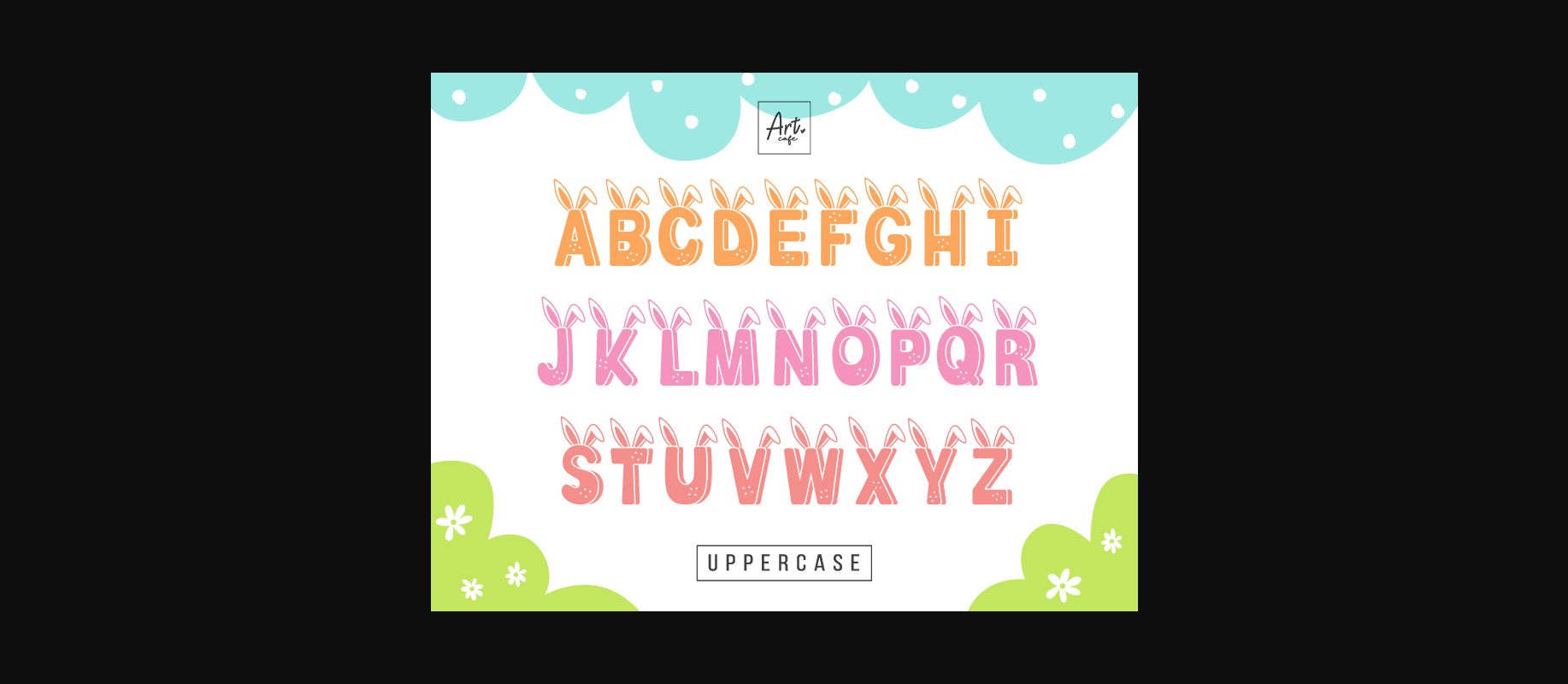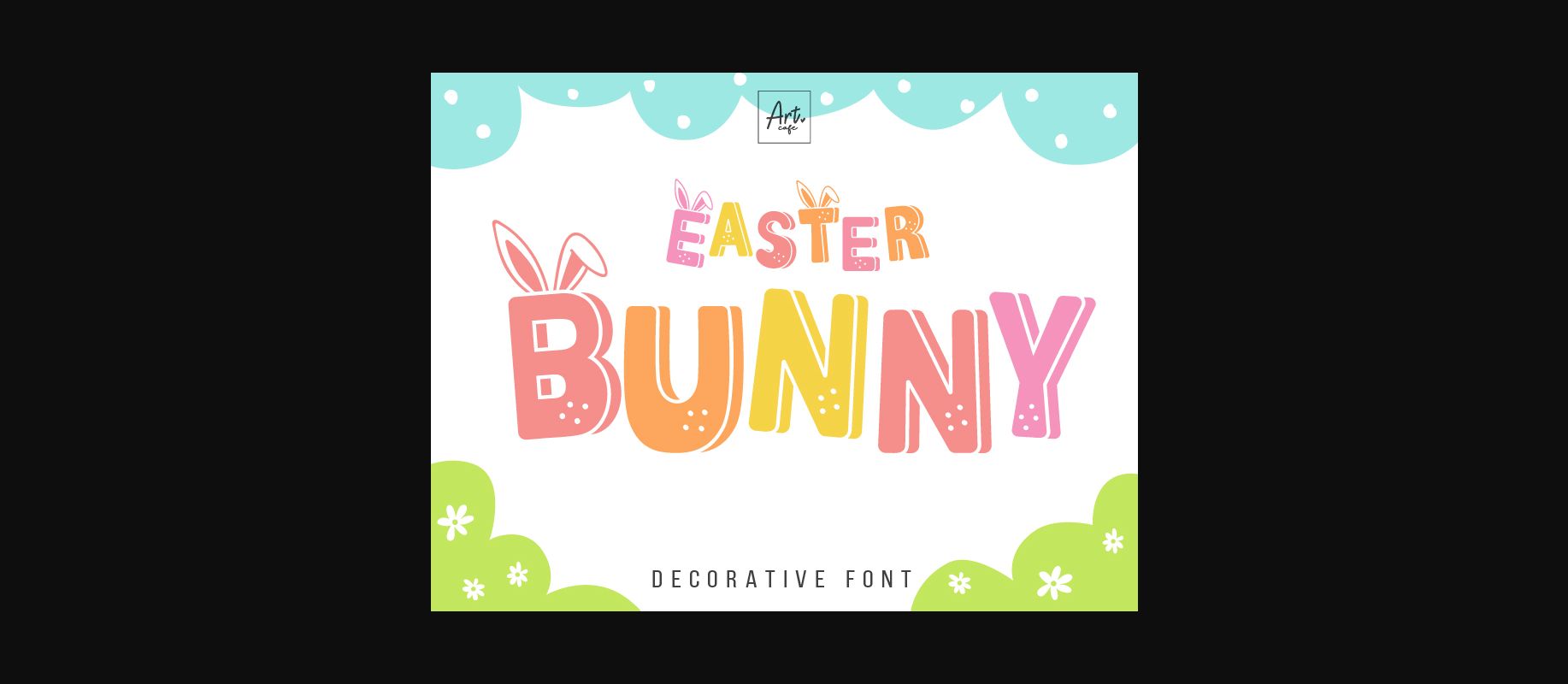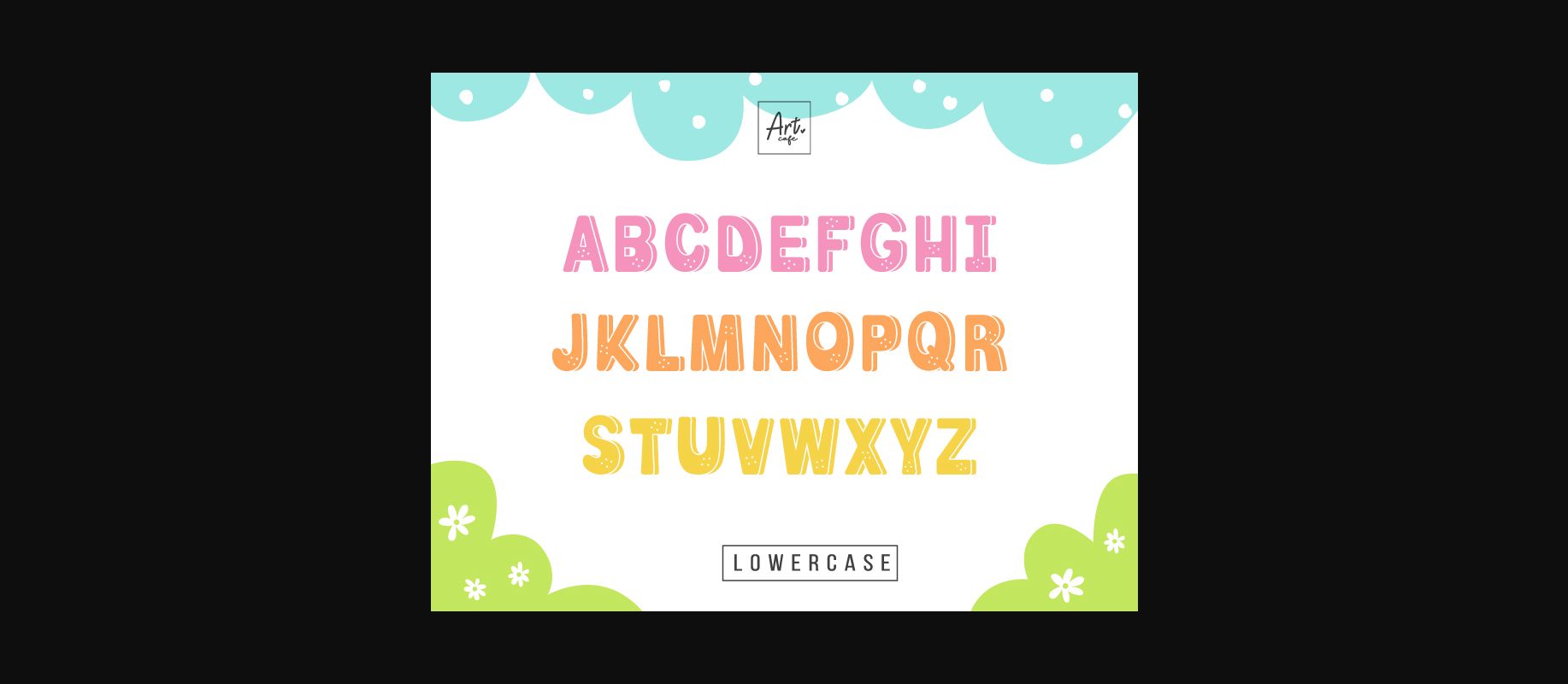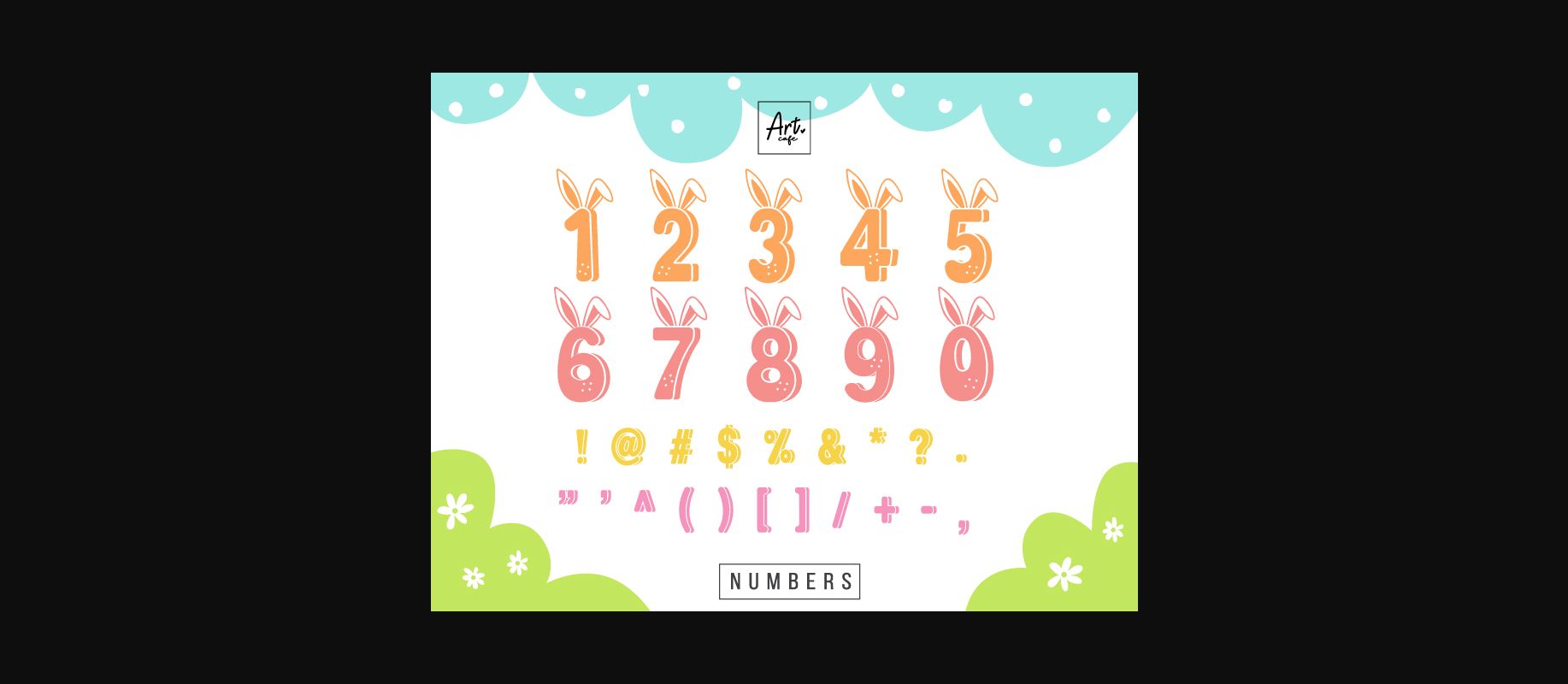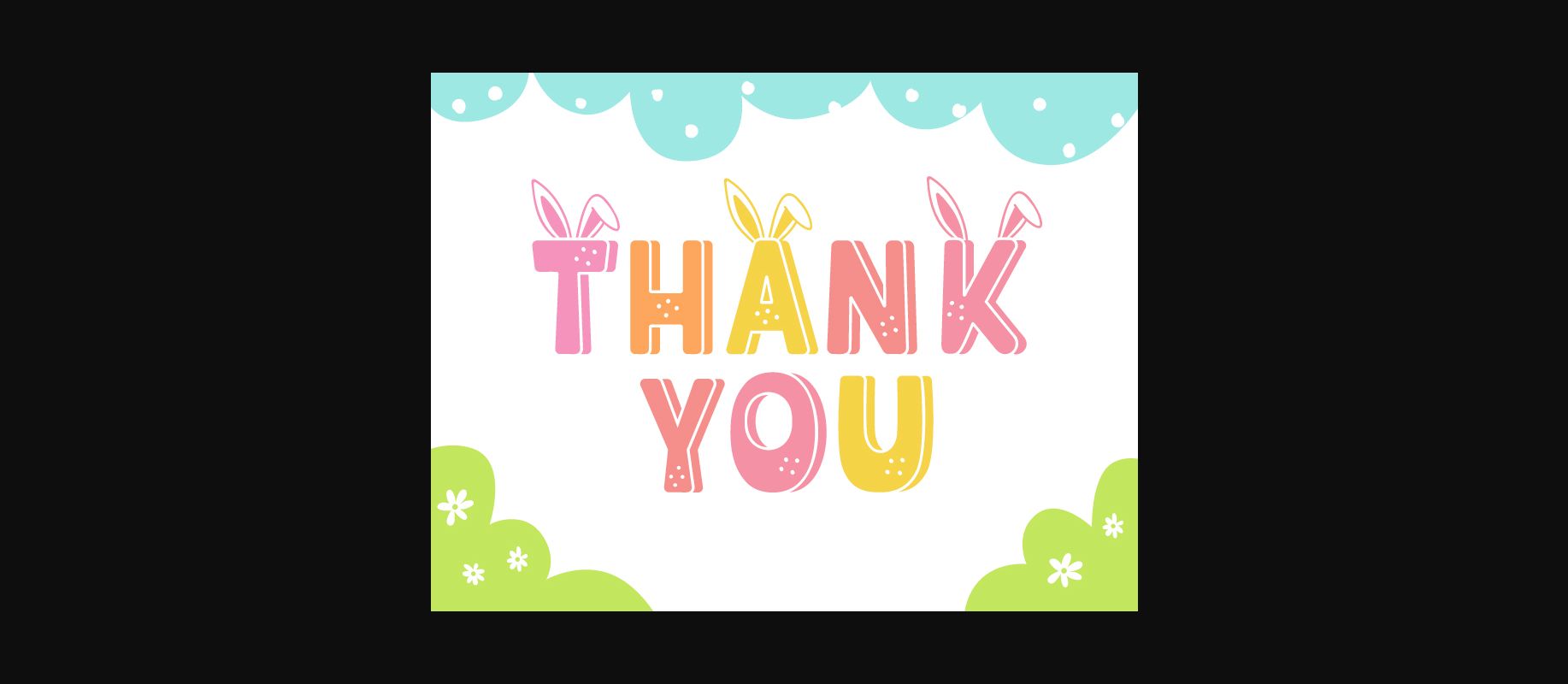
Easter Bunny Font
About Easter Bunny Font
Introducing Easter Bunny – an irresistibly charming font that tastefully integrates dainty rabbit ears for an extra splash of creativity. Specially crafted for the festive season of Easter, this adorable typography is also an enchanting choice for children’s themed projects. Infuse a dash of fun and playfulness into your design narrative with Easter Bunny, the font that beautifully marries whimsical aesthetics with creative flair.